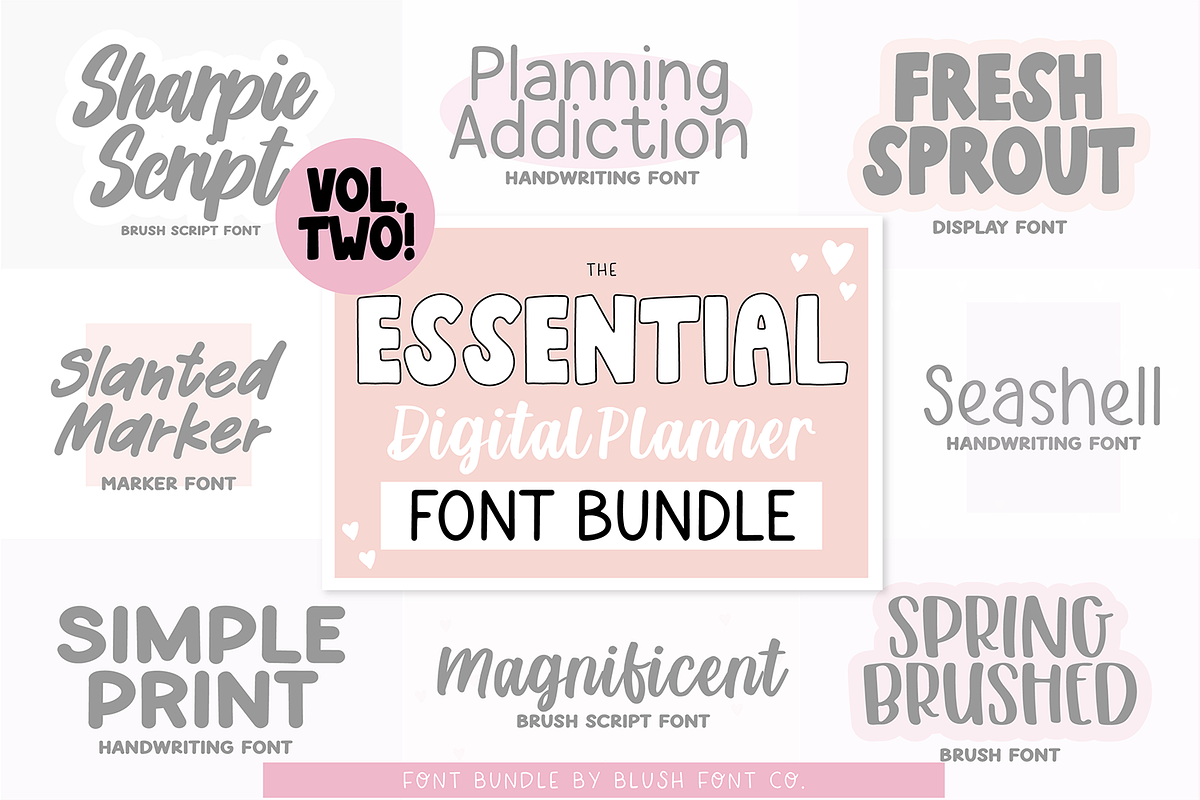
Essential Planner Font Bundle Vol. 2 Free Download is a delightful collection of 8 clean and cute handwritten fonts, meticulously crafted for digital planning and note-taking. Designed with compatibility in mind, these fonts are perfect for applications like Goodnotes, Procreate, Canva, and other digital platforms.
The bundle includes the following fonts:
Seashell
Slanted Marker
Sharpie Script
Simple Print
Magnificent
Spring Brushed
Fresh Sprout
Planning Addiction